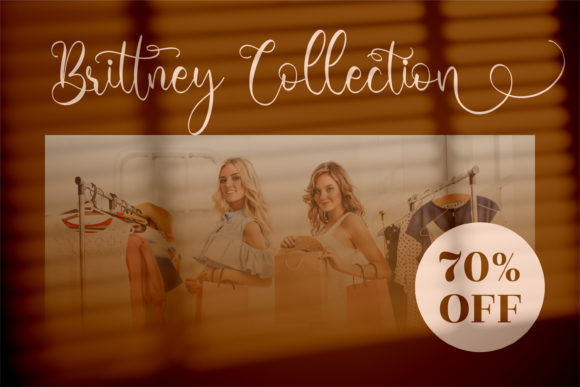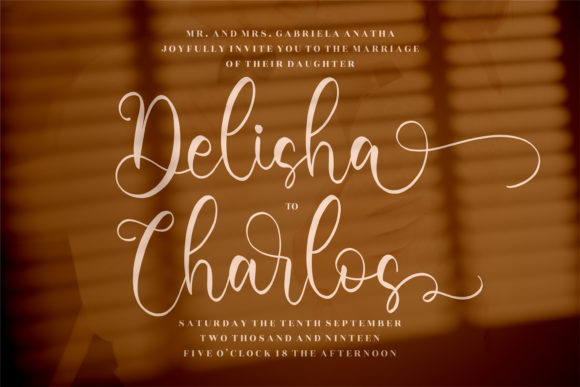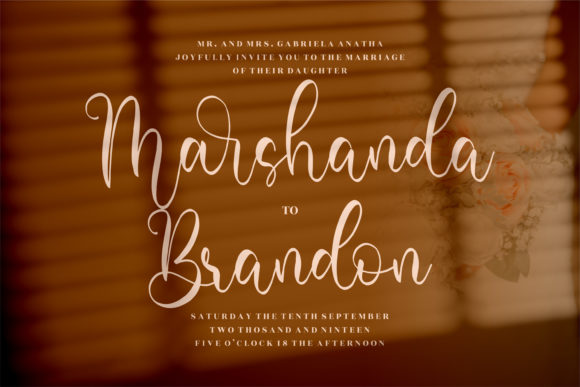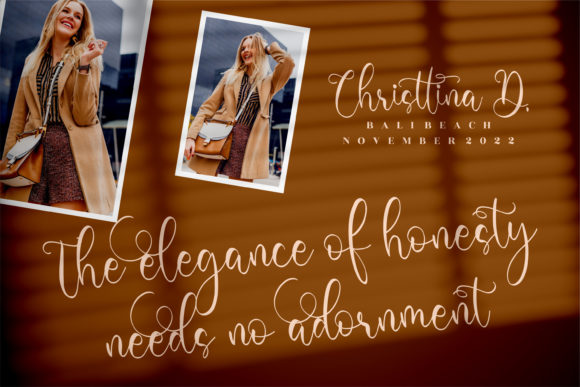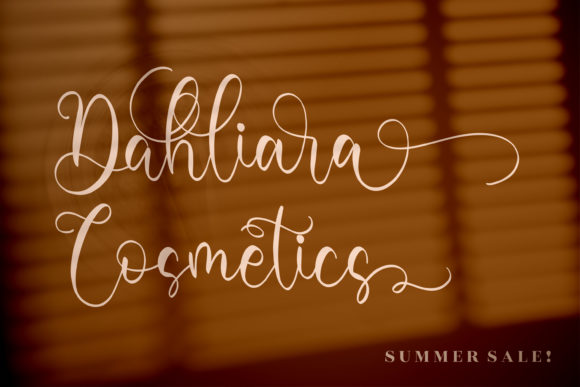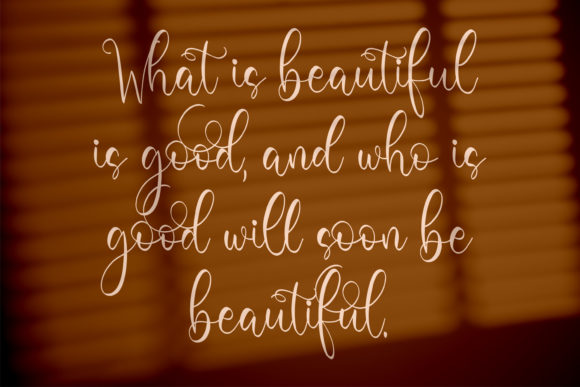
Discover the Elegance of Barbara Derina Font: A Timeless Handwritten Classic
In the world of typography, few fonts manage to strike a balance between classic elegance and modern flair. Barbara Derina Font is one such gem that has captured the hearts of designers and crafters alike. This exquisite handwritten font is masterfully designed to become a true favorite among typography enthusiasts. With its classy calligraphic influences and contemporary feel, Barbara Derina is the perfect addition to any design project.
The Unique Charm of Barbara Derina
What sets Barbara Derina apart from other handwritten fonts is its unique blend of traditional calligraphy and modern sensibilities. The font’s flowing lines and delicate strokes evoke a sense of nostalgia, while its clean and crisp edges keep it feeling fresh and contemporary. Whether you’re working on a branding project, a wedding invitation, or a craft project, Barbara Derina is sure to add a touch of sophistication and elegance.
One of the standout features of Barbara Derina Font is its PUA (Private Use Area) encoding. This means that users can access all the glyphs and swashes with ease, giving them complete creative control over their design projects. With PUA encoding, you can effortlessly navigate through the font’s extensive character set, including ligatures, alternates, and ornaments. This feature makes it easy to add a personal touch to your designs and create truly unique and eye-catching typography.
Barbara Derina Font is a versatile and adaptable font that is perfect for a wide range of design applications. Whether you’re a professional designer or a crafter looking to add a personal touch to your projects, this font is sure to become a favorite. Here are just a few ways you can use Barbara Derina:
- Branding and Packaging: Use Barbara Derina to create elegant and sophisticated brand identities, product labels, and packaging designs.
- Wedding and Event Design: Add a touch of romance and whimsy to your wedding invitations, stationery, and event branding with Barbara Derina.
- Crafting and Scrapbooking: Use Barbara Derina to add a personal touch to your scrapbooking projects, journals, and other handmade crafts.
- Digital Design: Barbara Derina is perfect for digital designers looking to create beautiful and engaging social media graphics, blog headers, and website titles.
Why Choose Barbara Derina Font?
With so many fonts available, why choose Barbara Derina? Here are just a few reasons why this font stands out:
- Unique and Elegant: Barbara Derina is a truly unique and elegant font that will add a touch of sophistication to any design project.
- Versatile: This font is perfect for a wide range of design applications, from branding and packaging to wedding design and crafting.
- Easy to Use: With PUA encoding, accessing glyphs and swashes is easy, making it simple to get creative with your designs.
- High-Quality: Barbara Derina is a high-quality font that is designed to deliver exceptional results in any design project.
In conclusion, Barbara Derina Font is a timeless handwritten classic that is sure to become a favorite among designers and crafters. With its unique blend of classic calligraphy and modern sensibilities, this font is perfect for adding a touch of elegance and sophistication to any design project. Whether you’re working on a branding project, a wedding invitation, or a craft project, Barbara Derina is the perfect choice. So why wait? Discover the elegance of Barbara Derina Font today and take your designs to the next level!